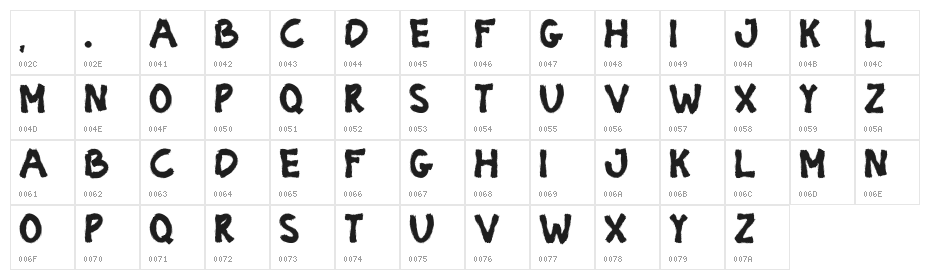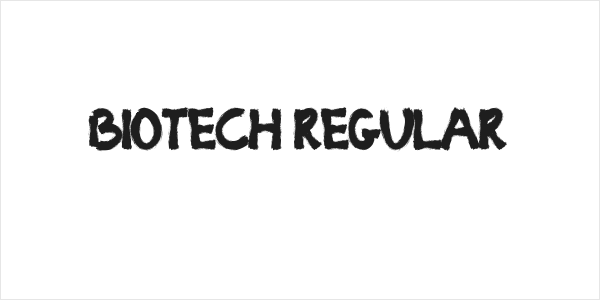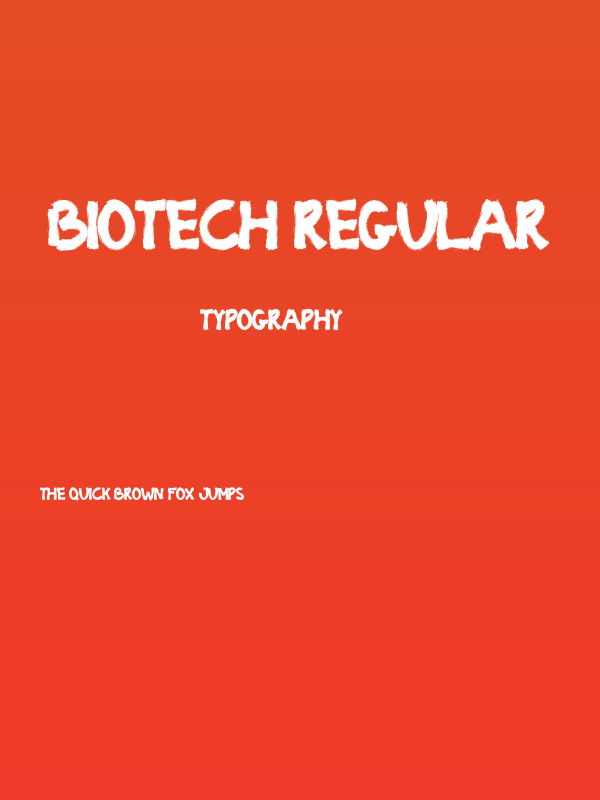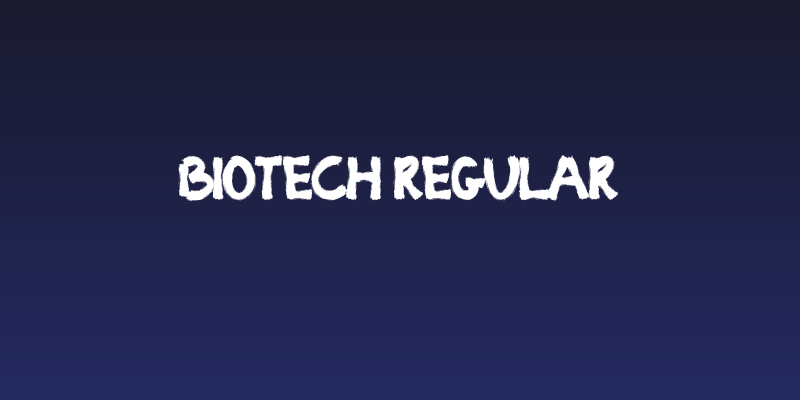
BIOTECH Regular Font
BIOTECH Regular Description
This font features a bold, brush-like texture that gives it a dynamic and energetic appearance. The strokes are uneven, adding a handcrafted feel that is both artistic and expressive. The uppercase letters are prominent and slightly irregular, enhancing the font's unique character. The overall design is robust, with thick strokes that suggest a sense of strength and movement. This style is ideal for creating impactful headlines or logos that require a touch of creativity and boldness. The font's distinctive look makes it suitable for projects that aim to stand out and make a statement.
| Proposed Projects | Ideal for creative projects such as posters, logos, branding, and headlines that require a bold and artistic touch. |